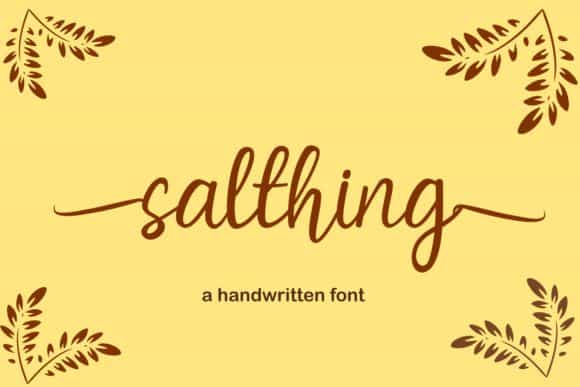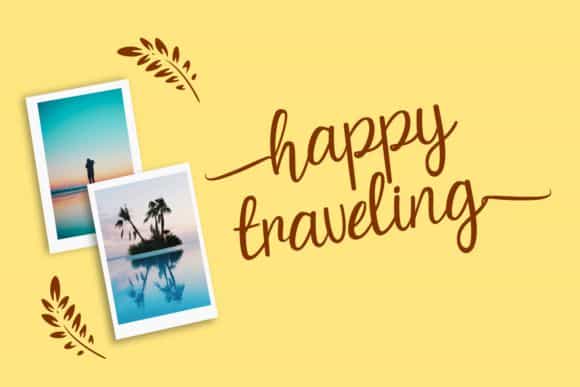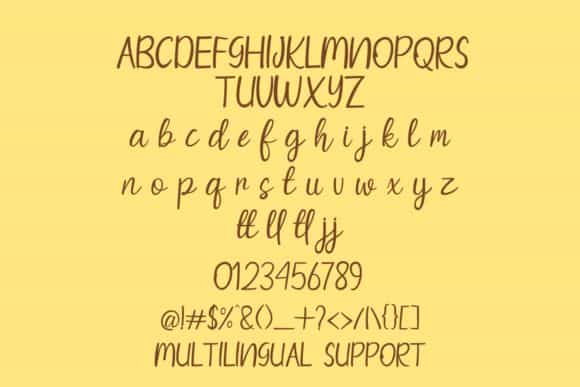
Salthing is as charming and elegant at the same time. This amazing cursive font is a modern tribute to the traditional calligraphy. It has a fluctuating baseline, smooth lines, beautiful glyphs and amazing alternates.